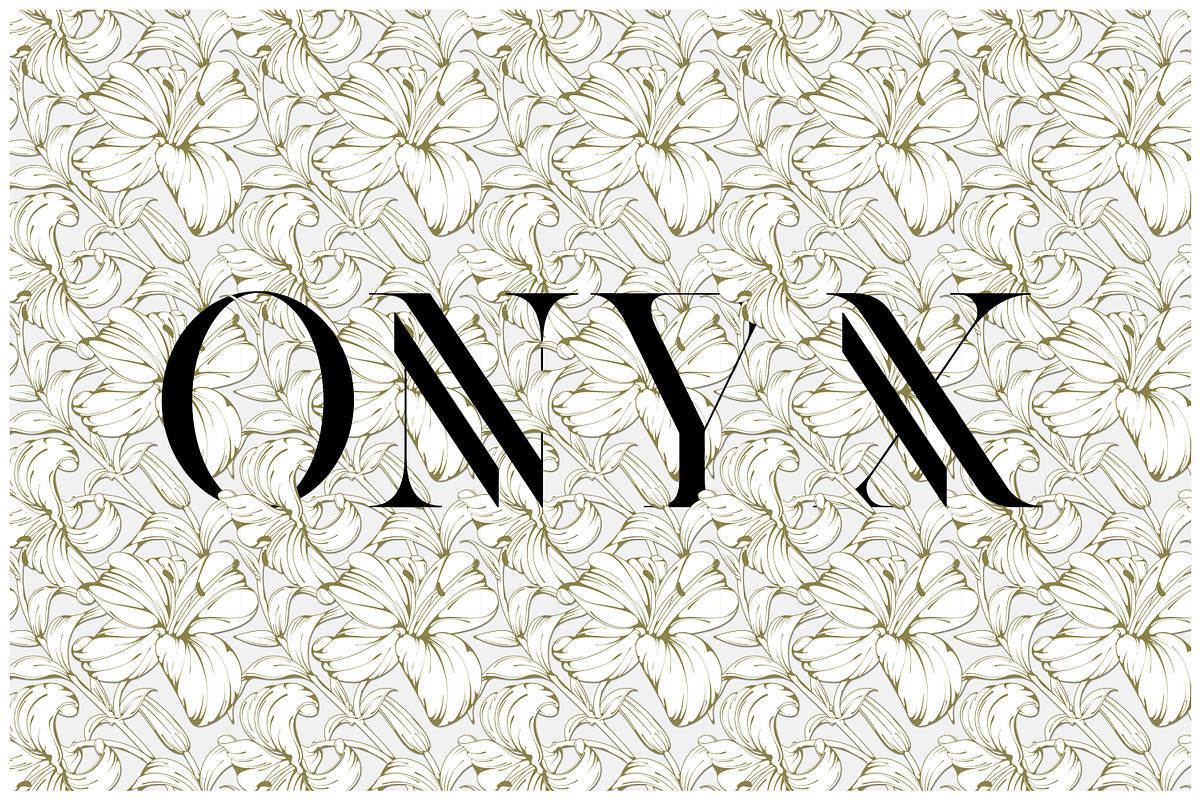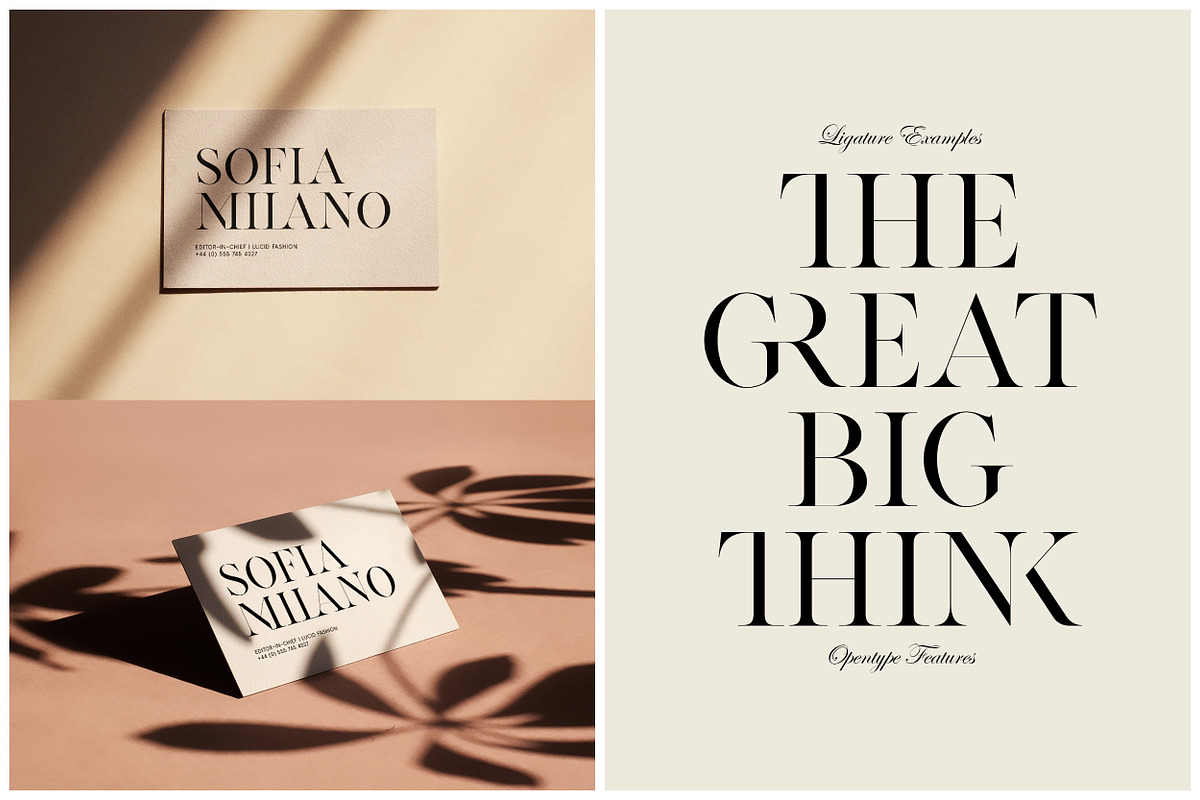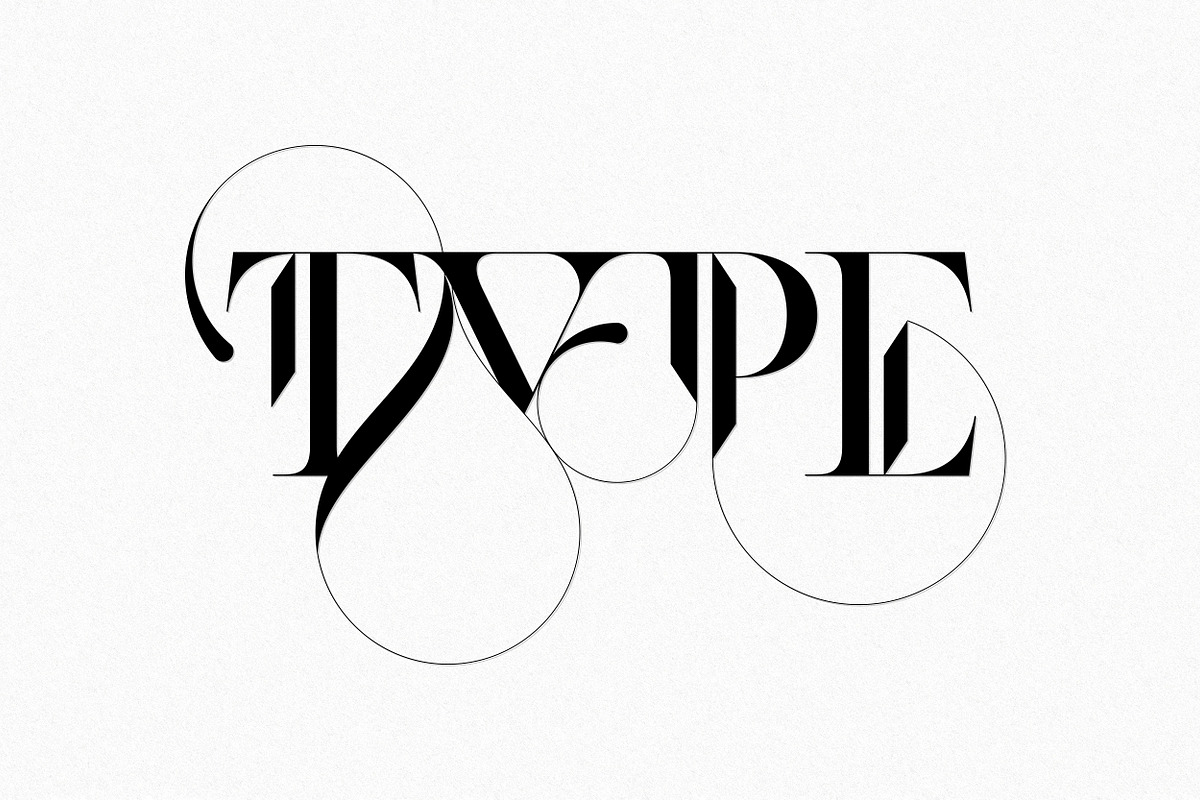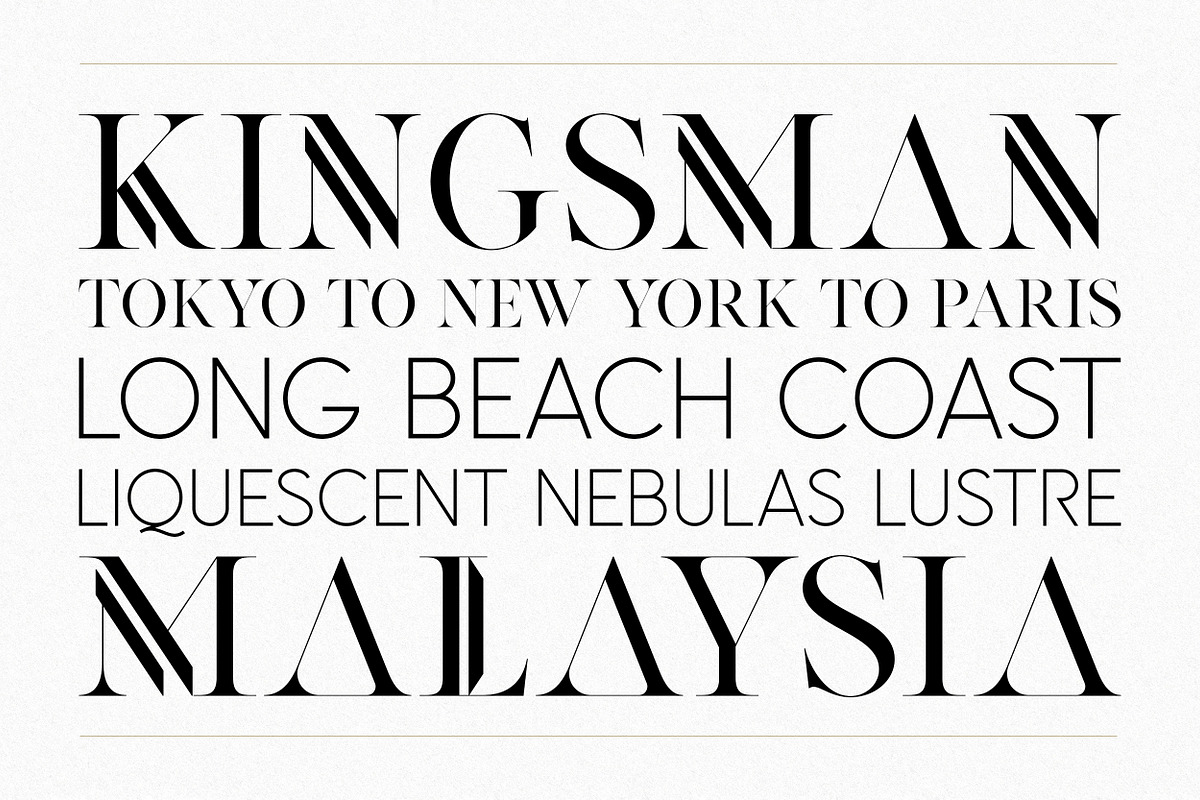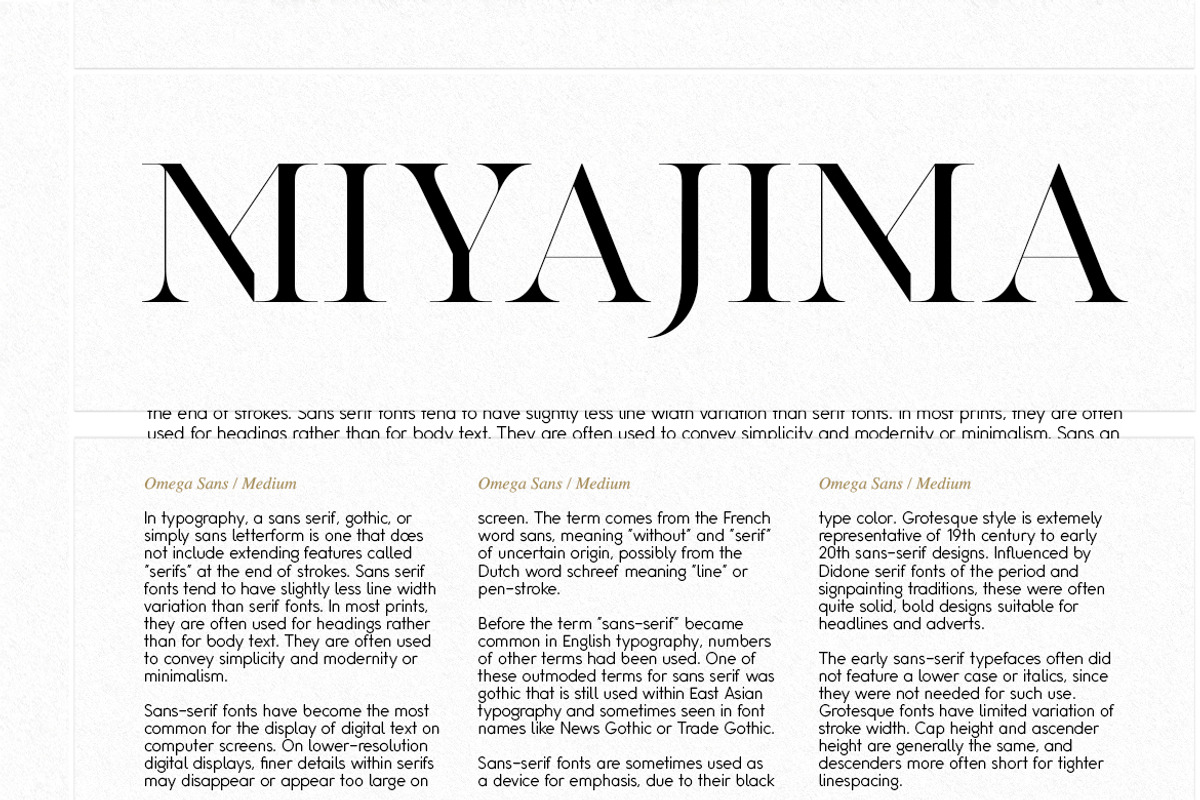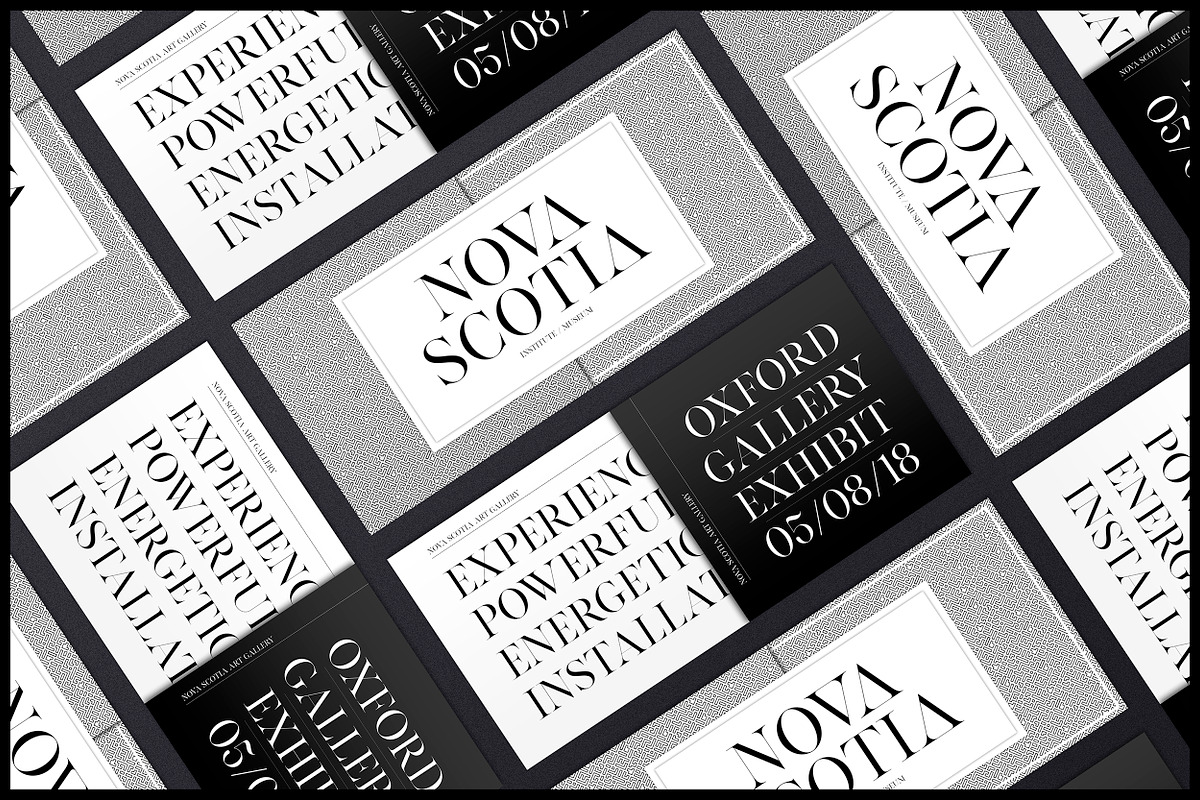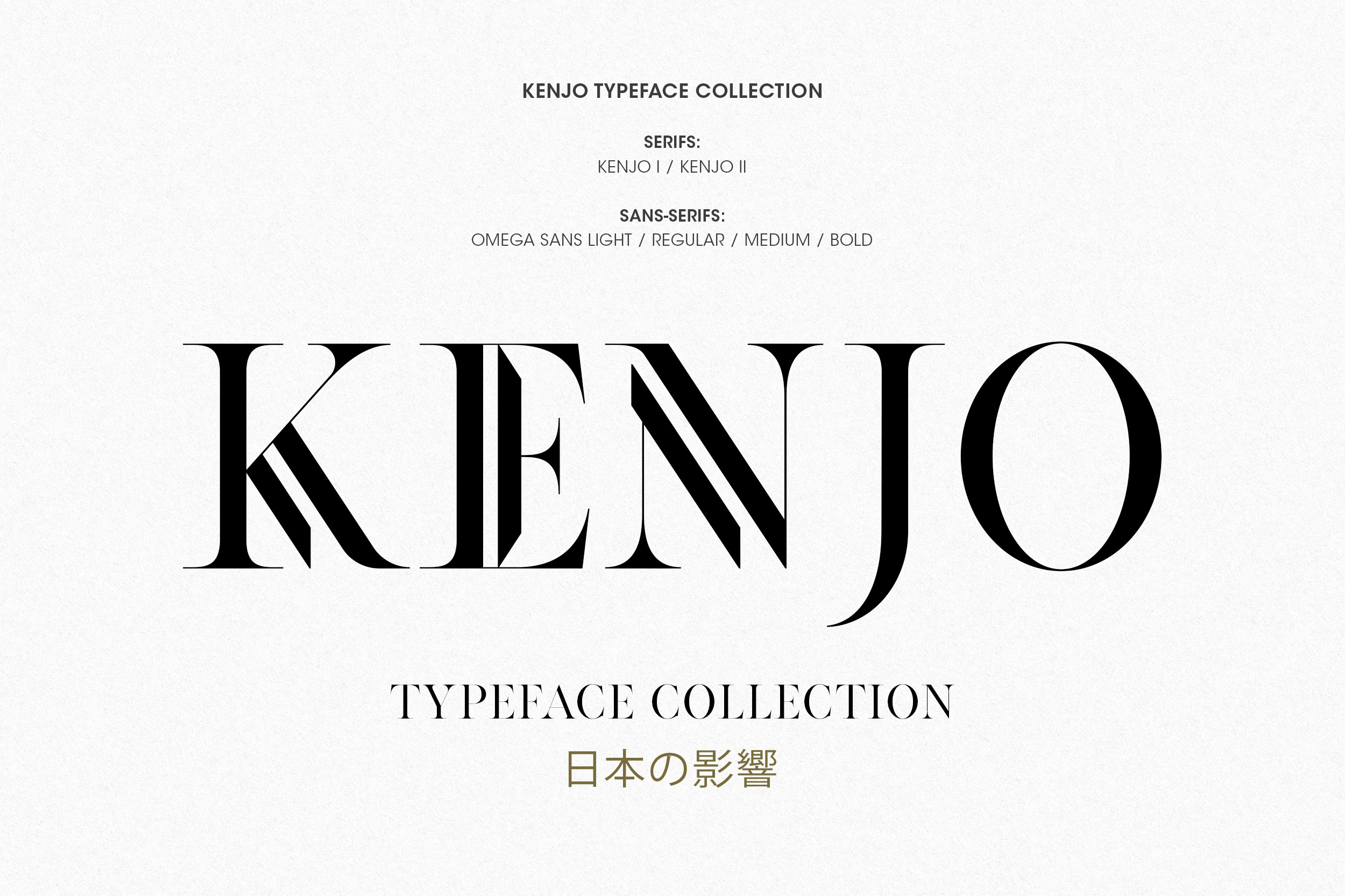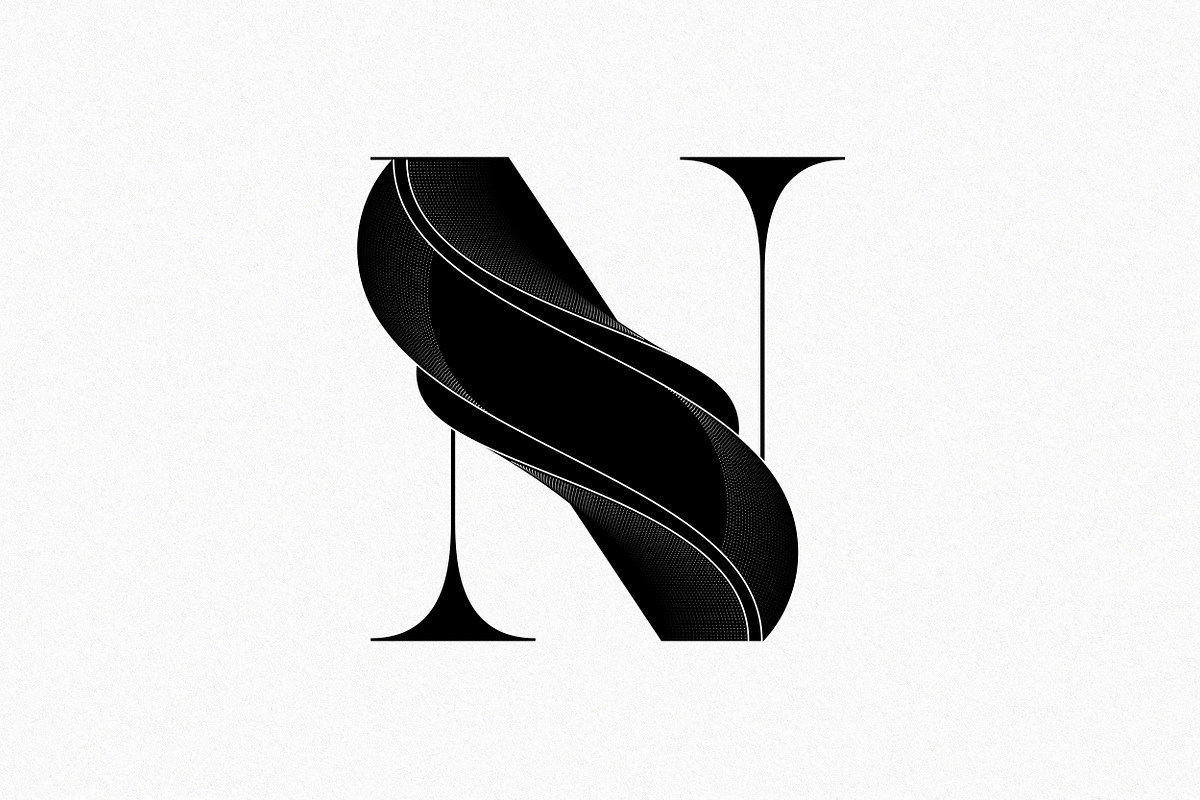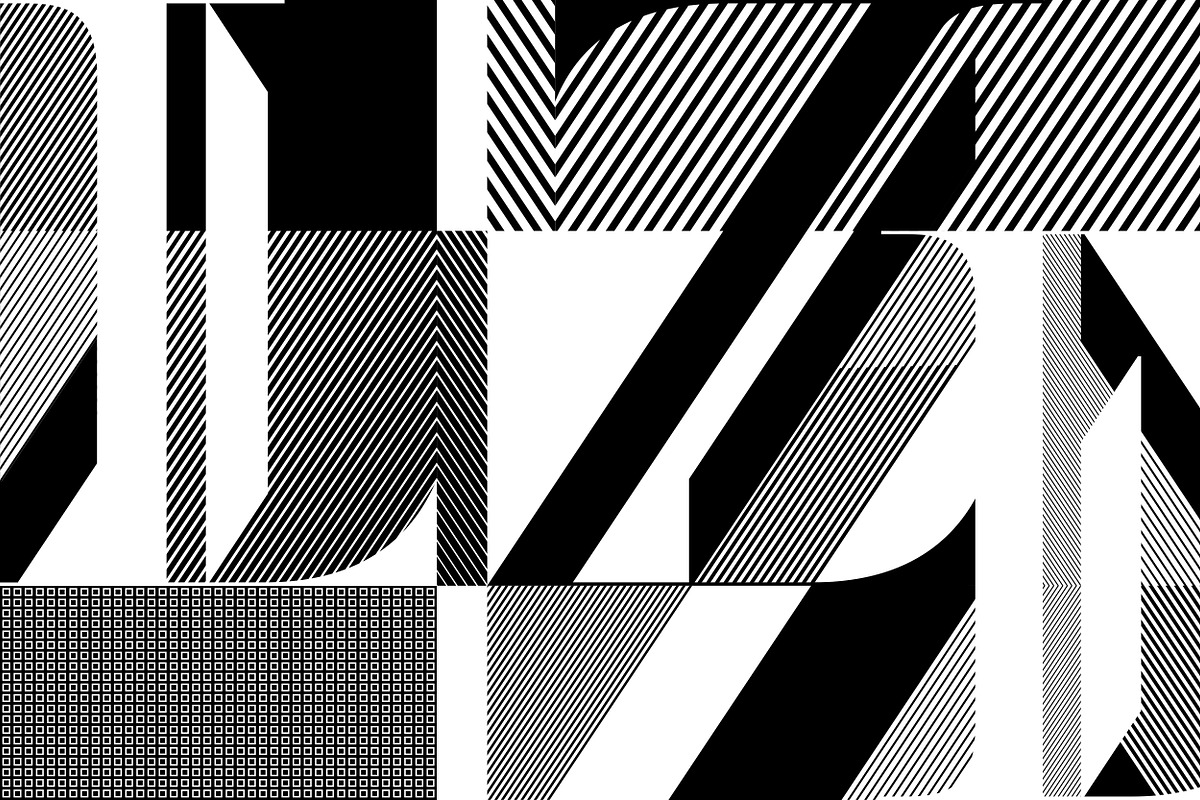
Kenjo Font Duo + Free Sans
2 Font Families | 6 Fonts
Kenjo I & II is a Display font collection, with Japanese/Art Deco influence. Completely uppercase (currently), it houses the standard more versatile Serif (Kenjo I), along with a high fashion, stylised option (Kenjo II). Ideal for professional logos, sharp displays, magazines, blog titles, wedding invitations, social media and print.
Omega Sans is a Classic Sans-Serif Font Family (4 Weights), and a great accompaniment to Kenjo for Sub-Headings and Sub-Text. Both are Multilingual with 80 language latin-based support. Full Character Map available soon.
Optimised with minimal vector nodes and perfect geometric Bézier curves for a sharper more refined finish.
Kenjo I + Kenjo II
Omega Sans (light, regular, medium, bold)
Numbers + Punctuation
Extended Non-English support (80 language support)